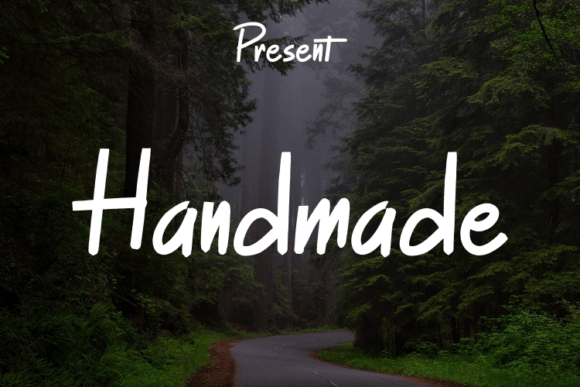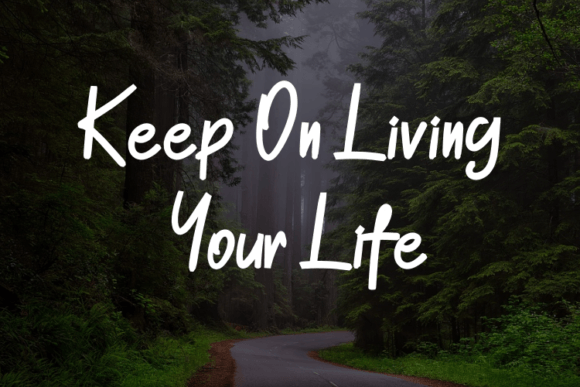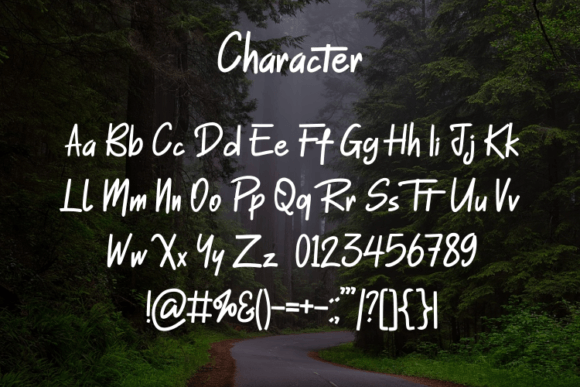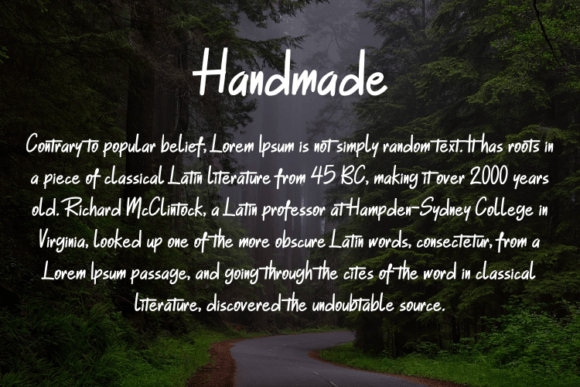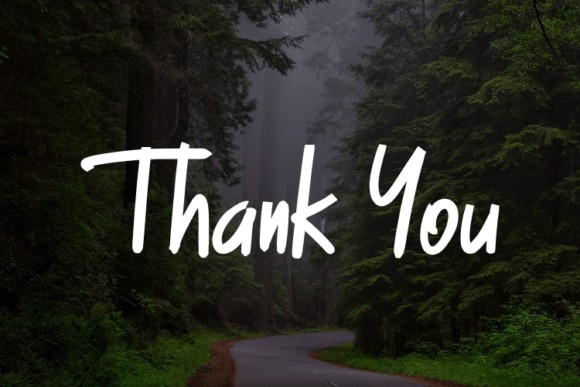
Handmade Font: Simple and Modern Script for Elegant Designs
“Handmade” is a versatile script font that combines simplicity with a modern look. It’s perfect for various design applications, adding an elegant and luxurious touch to your creative projects.
Key Features of Handmade Font
- Simple Style: Handmade brings a clean, elegant look to designs.
- Modern Appearance: Adds a contemporary feel to your typography.
- Versatile Use: Suitable for many projects, from logos to editorial designs.
Logo and Branding Design
Handmade’s elegant style is ideal for creating sophisticated logo designs and branding materials that convey luxury and style.
Fashion and Editorial
Use Handmade for fashion brands, magazine layouts, and editorial designs to showcase elegance and contemporary style.
Book and Movie Titles
The font’s modern look makes it perfect for creating eye-catching book covers and movie titles.
Why Choose Handmade Font?
Handmade offers more than just beautiful letters. Here’s why it stands out:
- Adds a touch of luxury and refinement to designs
- Versatile enough for both high-end and casual projects
- Creates a sleek and sophisticated look in various applications
By using Handmade, you open up new design possibilities. Its simple yet modern style works well in many contexts, from clothing labels to poster designs. The font’s ability to convey elegance can inspire creative ideas and help you approach projects from a fresh, sophisticated perspective.
Handmade in Digital and Print Design
Handmade excels in both digital and print applications. Its clean look makes it perfect for creating engaging social media graphics and eye-catching print materials. In the digital realm, it can add a touch of elegance to websites and online content.
If you’re looking for a font that’s both simple and modern, Handmade is an excellent choice. It’s perfect for adding an elegant touch to your work, especially for projects that need a luxurious, contemporary feel.
Explore how Handmade can transform your designs. From branding projects to editorial layouts, this font brings a sleek and sophisticated quality to your creations.